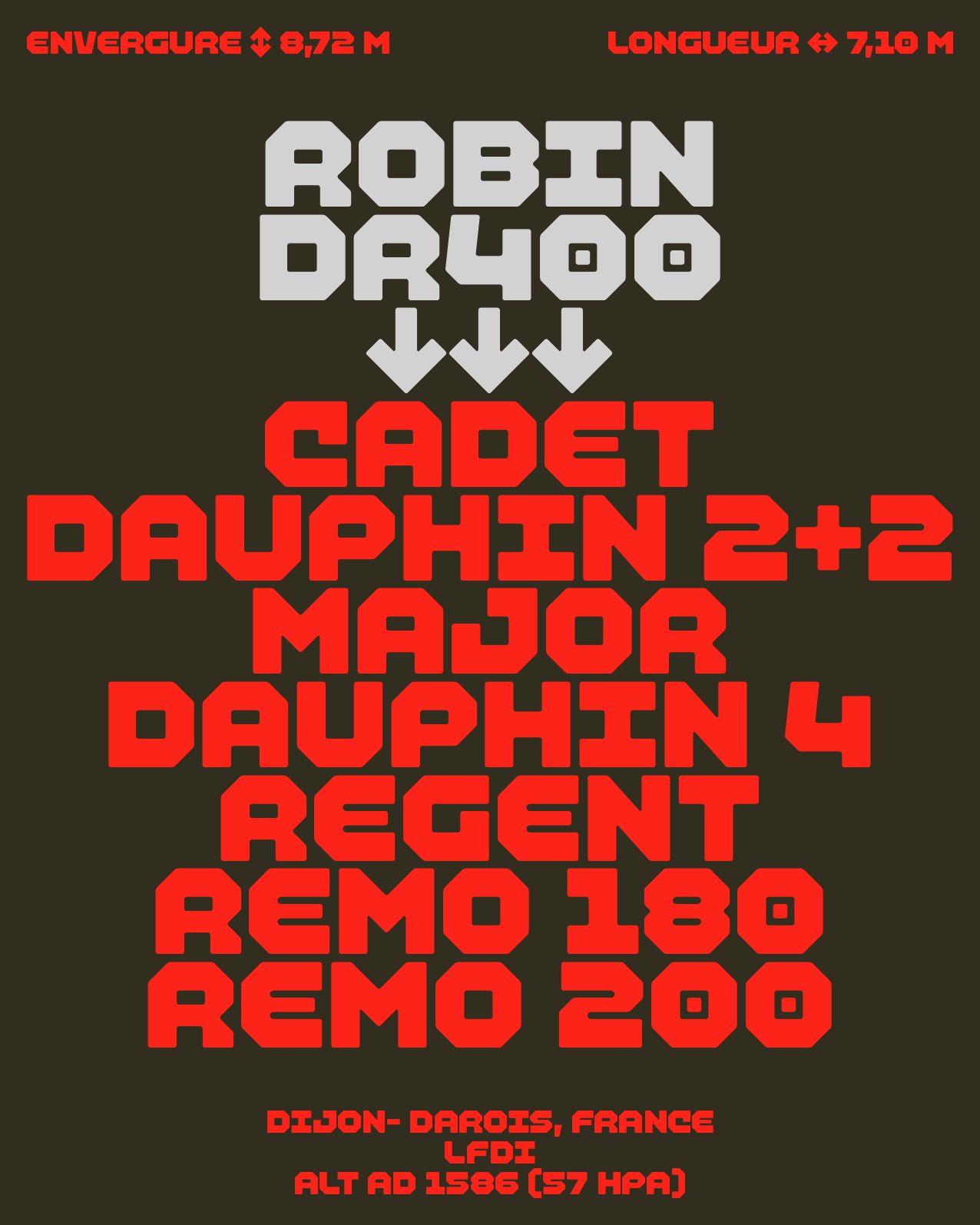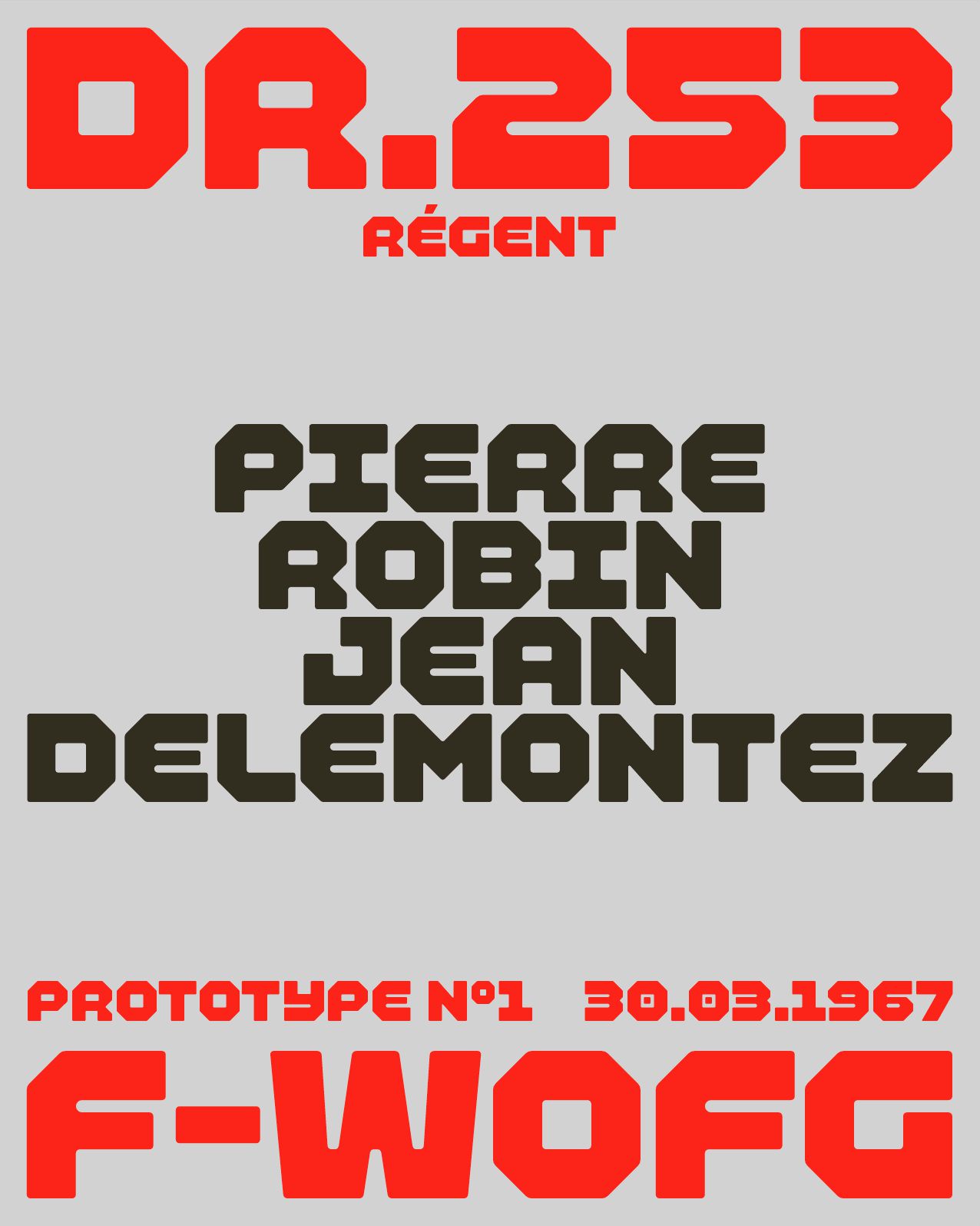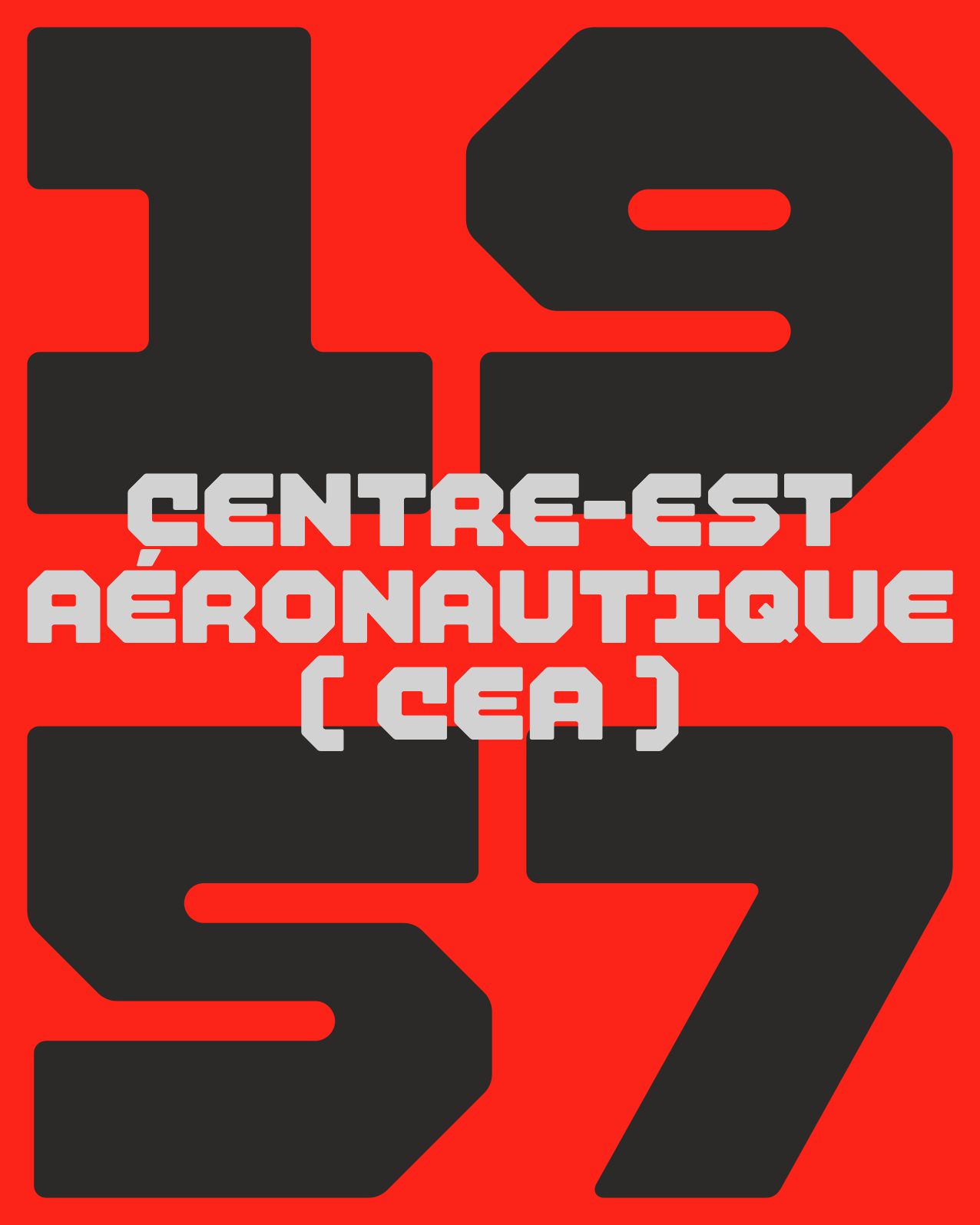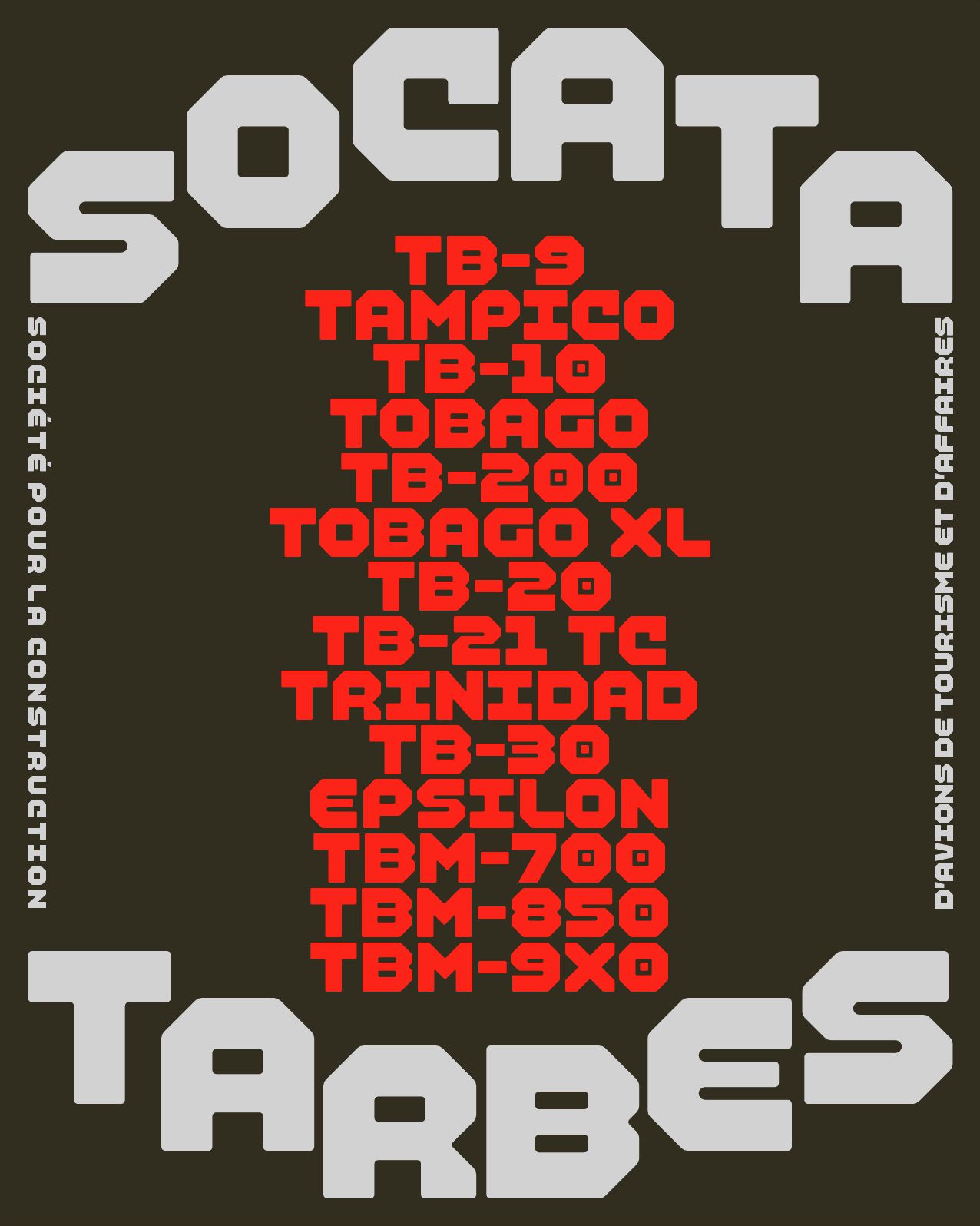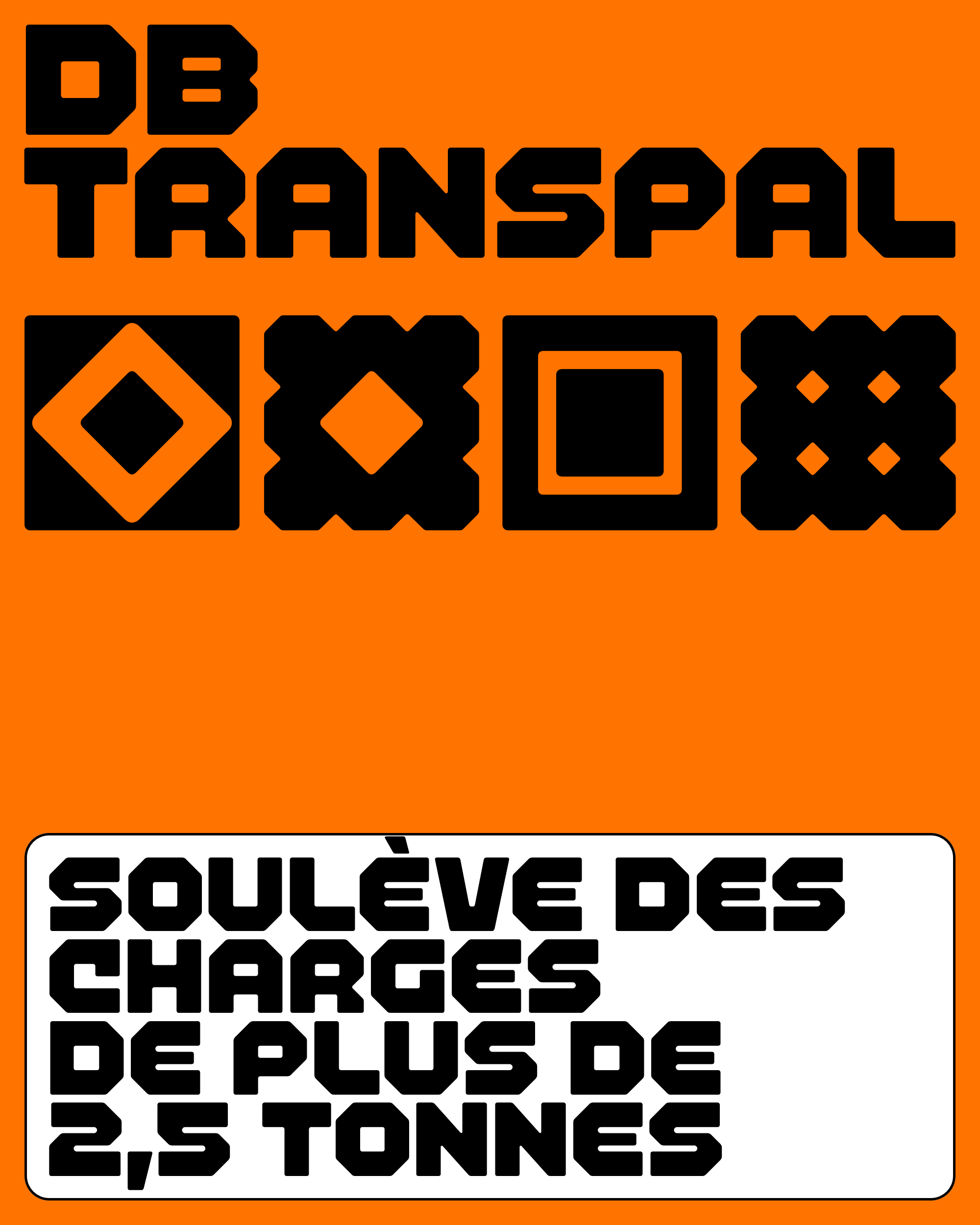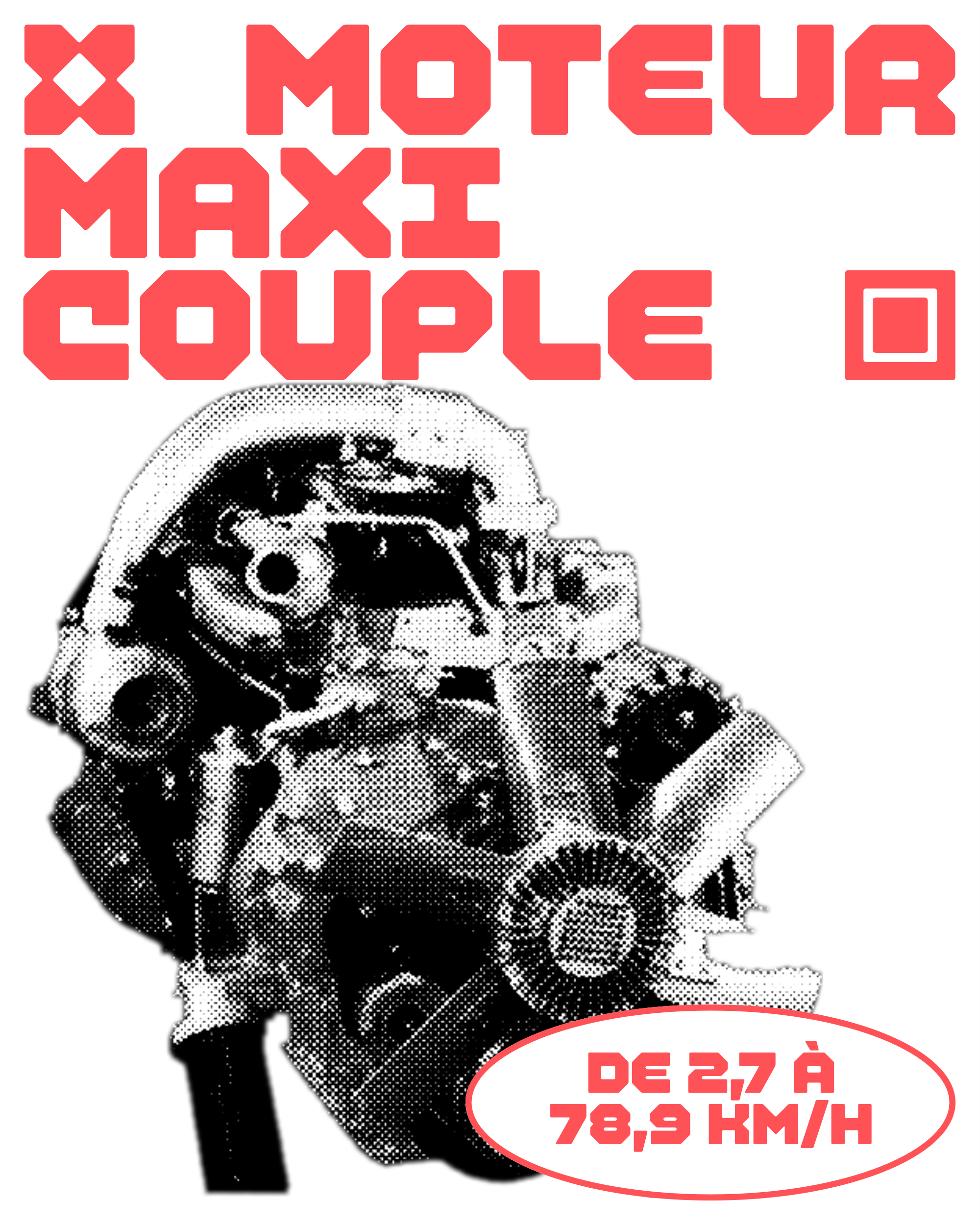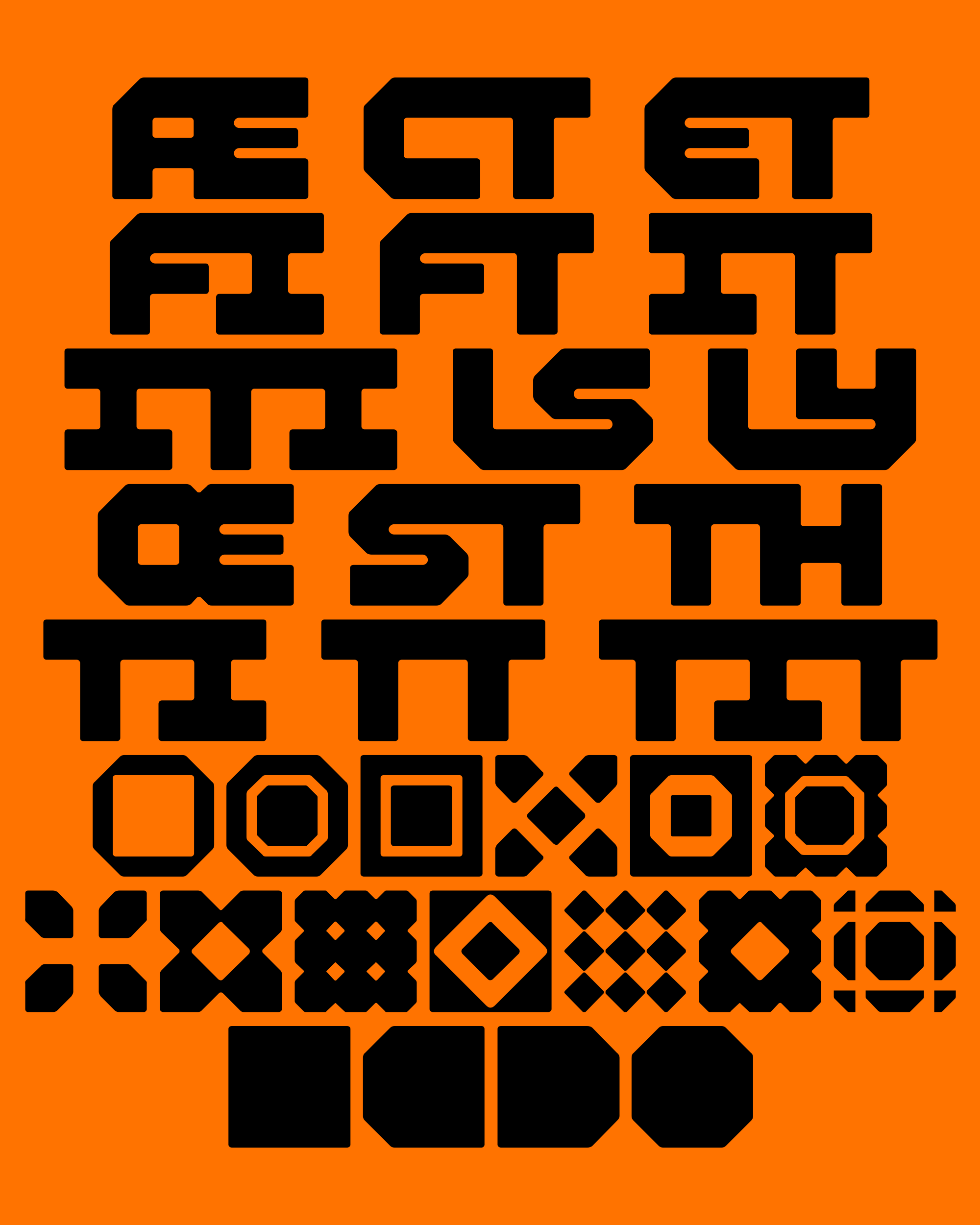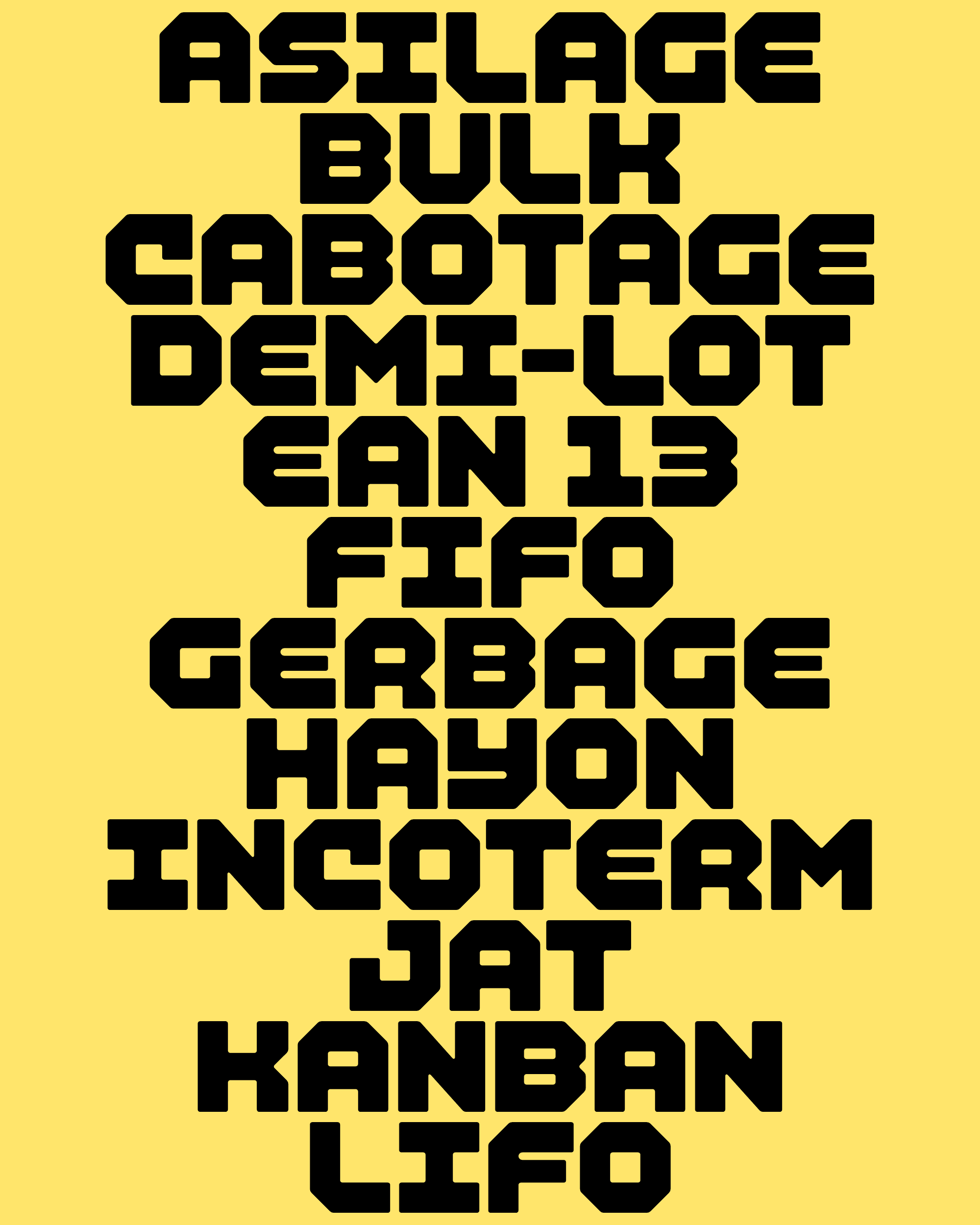
Transpal
Transpal is a typeface originally developed for the visual identity of Aktuel, a French player in logistics and event furniture. It combines the rigor and structure inherent in the organization of transport flows with a comforting bonhomie thanks to its octagonal structure. Capable of lifting over 2.5 tons, Transpal is waiting for just one thing: to be proudly flown on your next fleet of semi-trailers.